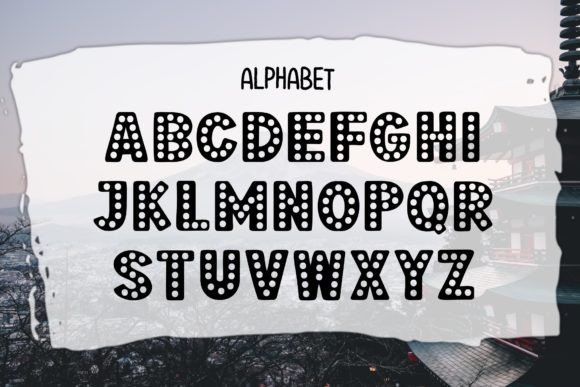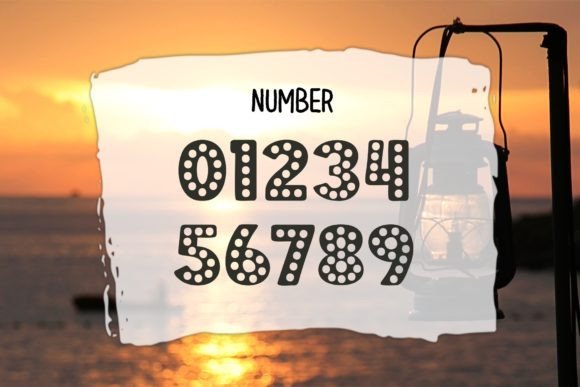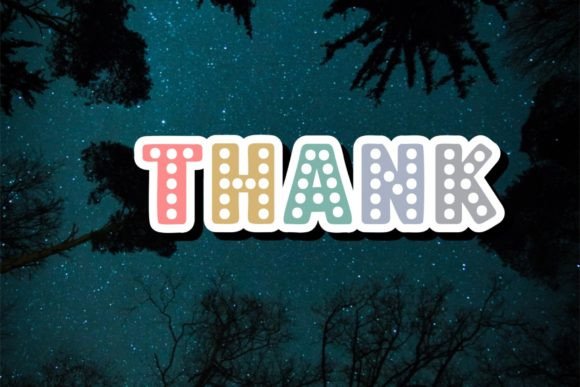
Introduction to Light Circle Font
Have you ever been brainstorming ideas for a creative project, only to be struck by the perfect concept – but struggling to find the right visual elements to bring it to life? That’s exactly what happened to me when I was working on a new branding project for a friend’s small business. I wanted something that would stand out, yet still feel approachable and friendly. That’s when I stumbled upon the Light Circle Font – a beautiful, high-quality decorative font that instantly elevated my design.
As designers, we’re always on the lookout for unique and versatile design resources that can help us take our projects to the next level. The Light Circle Font is just that – a free download that offers a transparent background, making it perfect for a wide range of applications, from logos and branding to social media graphics and crafty DIY projects.
Key Features of Light Circle Font
- High-quality design with a transparent background, ideal for creative projects.
- Unique circular design elements that can be used to create visually appealing graphics.
- Perfect for use in logos, icons, and other design elements where a clean and modern look is desired.
Honest Review: Light Circle Font
I recently stumbled upon the Light Circle Font, a beautiful and elegant design resource that’s perfect for creative projects. The font’s high quality and sleek design make it a great addition to any project.
One of the standout features of the Light Circle Font is its transparent background, which allows for seamless integration into any design. The font’s versatility and legibility make it an excellent choice for headings, titles, and body text.
- ✨ Beautiful and elegant design that’s perfect for creative projects
- ✨ Highly legible and versatile, making it suitable for various design applications
- ⚠️ Limited character set, which may be a limitation for some users
- ⚠️ Not suitable for extended text blocks, as the font’s design may become overwhelming
Overall, I’m impressed with the Light Circle Font’s design and versatility. While it may have some limitations, it’s a great resource for designers looking for a high-quality, elegant font for their creative projects.
The Light Circle Font is perfect for creating eye-catching social media graphics, presentations, and marketing materials. Its high-quality design makes it an ideal choice for any creative project that requires a clean and modern look.